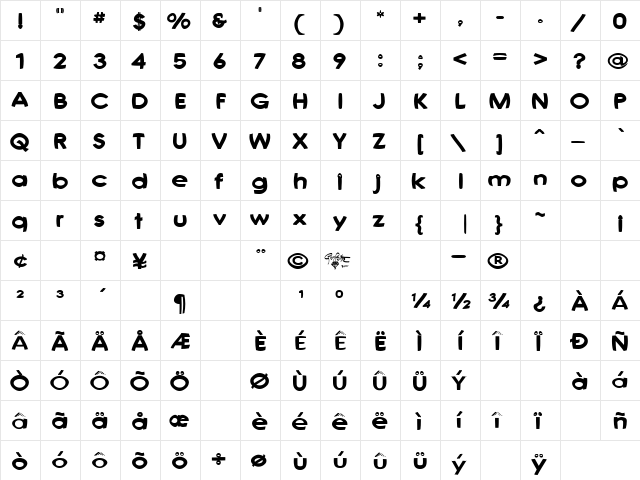
Joshs Font Regular
Design Context for Joshs Font Typeface
Joshs Font takes a measured approach to typography — its balanced proportions and neutral character make it a reliable workhorse for both digital and print work.